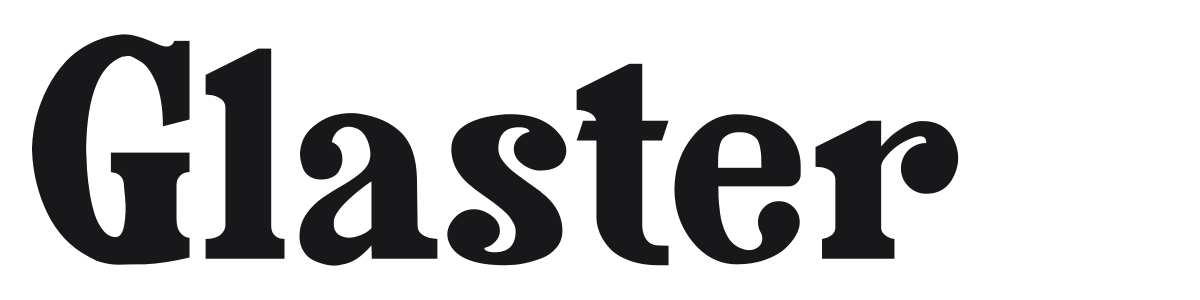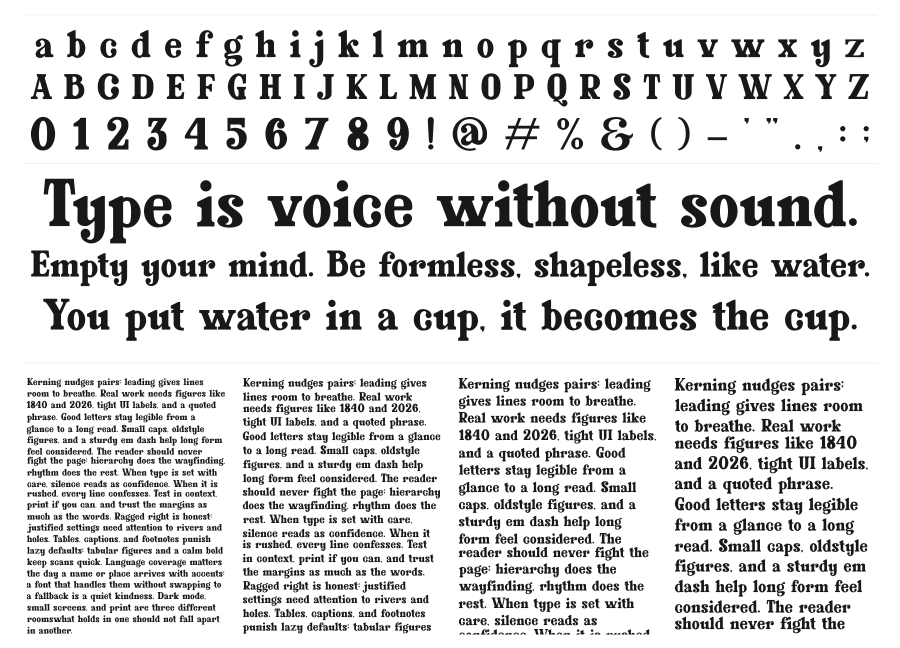
Glaster
Glaster is a bold, high-contrast slab-serif with deep bracketed serifs and generous open counters. The heavy stems paired with sharp hairline strokes give it a 19th-century editorial authority that works well at large sizes for headlines, covers, and brand identity. It markets itself as an elegant ligature serif, which hints at decorative alternates beyond the standard character set.